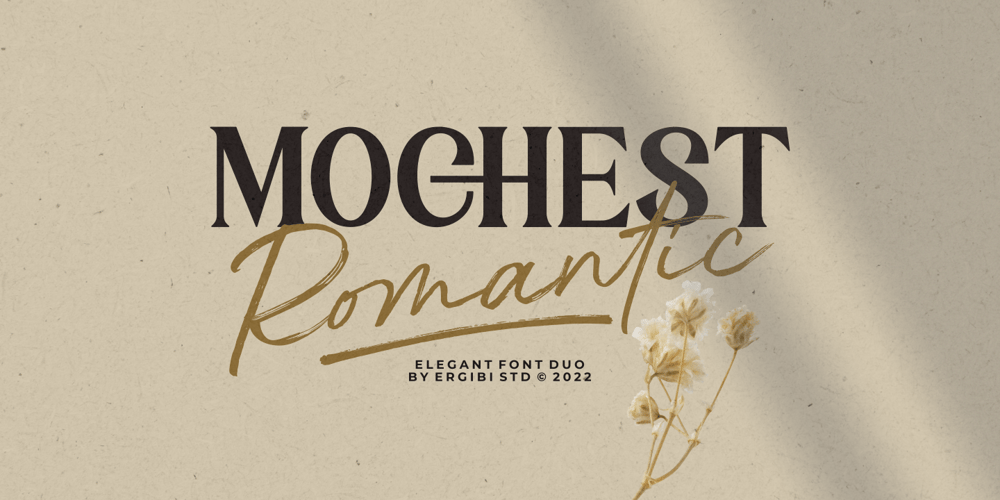
Mochest Romantic
Mochest Romantic font
Mochest Romantic Font Family was designed by Riyadh Rahman and published by Ergibi Studio. Mochest Romantic contains 2 styles and family package options. Mochest Romantic, these fonts are of two types serif and script. This typeface has been made carefully to make sure its premium quality and luxury feel. The ligatures on script makes this typeface unique and stands out rather than the regular serif font, perfectly for headlines, logos, posters, packaging, T-shirts,coffee shops, restaurants, magazine’s headers, signs or gift/post cards,cafe’s and weddings or any type of advertising purpose.What’s Included Mochest Romantic Script Mochest Romantic Serif Mochest Romantic include, numbers, punctuation,alternates, and it also supports other languages Mochest Romantic it also supports multilingual If there is a problem, question, or anything about my fonts, don’t hesitate to ask!Ergibi Studio